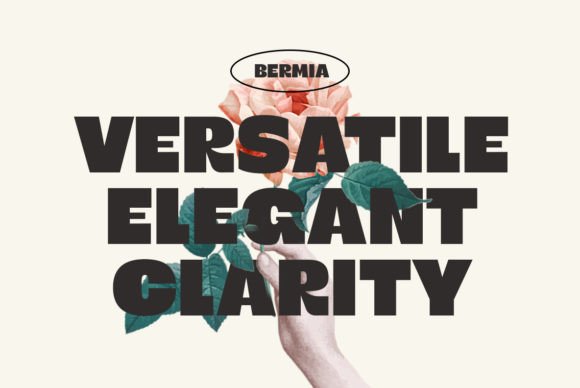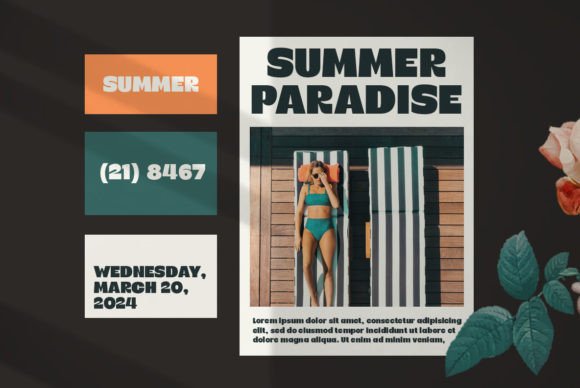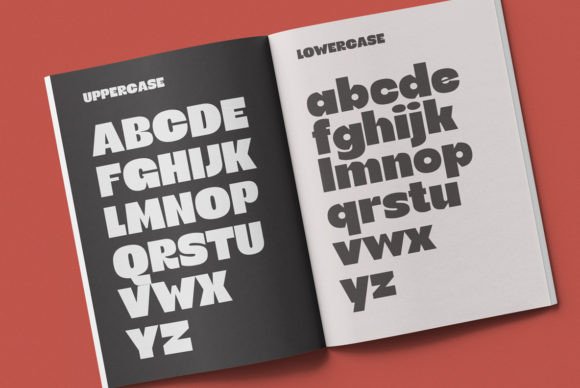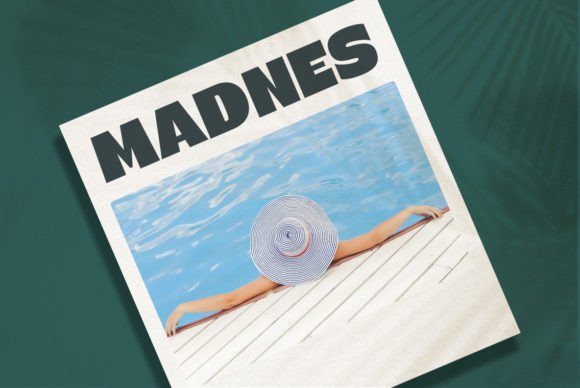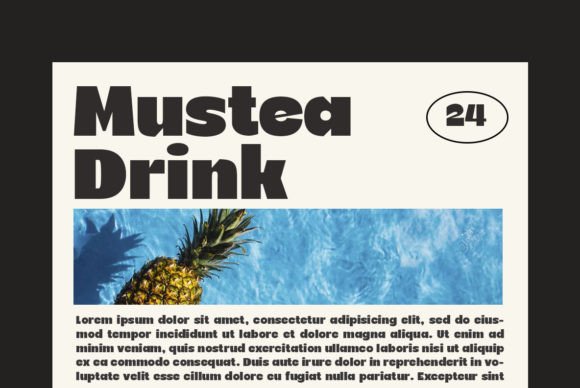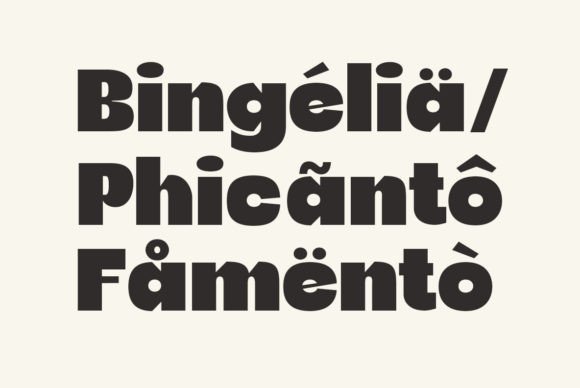
The Perfect Blend of Bold and Elegant: Bermia Font
Have you ever been stuck on a design project, staring at a blank page, searching for the perfect font to bring your vision to life? You know, that moment when everything clicks, and the words start flowing, and you know exactly what you want to create? That’s exactly what happened when the designers behind Bermia Font set out to craft a display font that would capture the essence of elegance and boldness.
Bermia Font is more than just a font – it’s a tool designed to elevate your branding, posters, logos, and advertisements to the next level. Its unique blend of style and readability makes it the perfect companion for designers looking to create impactful and engaging visual content.
With Bermia Font, designers can breathe new life into their projects, conveying messages that are not only visually stunning but also easy to read and understand. Its versatility and sophistication make it a valuable addition to any designer’s toolkit.
Bermia Font Key Features
- Font Family: Bermia Font is a sans-serif font family.
- Unique Characteristics: Bermia Font features a clean and modern design with a unique blend of geometric and rounded shapes, making it ideal for use in digital and print media.
- Language Support: Bermia Font supports a wide range of languages, including Latin, Cyrillic, Greek, and many others.
Bermia Font Review
I recently had the chance to work with the Bermia font, and I must say it’s an interesting addition to any design project. ✨ The font’s unique blend of modern and vintage elements makes it a great choice for those looking to add some visual interest to their text.
The Bermia font is highly legible, making it suitable for a wide range of applications, from body text to headings. ✨ The font’s open and airy feel also makes it a great choice for creating a sense of lightness and elegance in your designs.
While the Bermia font has many great qualities, there are some limitations to consider. ⚠️ For one, the font’s unique design can be a bit overwhelming for some users. Additionally, the font may not be suitable for applications where a more traditional or formal tone is required.
Here are some specific limitations to keep in mind:
- May not be suitable for formal or traditional designs
- Can be overwhelming for some users
- May require additional styling to achieve desired look
Overall, I think the Bermia font is a great choice for designers looking to add some visual interest to their projects. While it may not be suitable for every application, it’s a great option for those looking to create a unique and eye-catching design.
For the best results, use Bermia Font for headings and titles to add a touch of elegance to your design.
Use Bermia Font to create beautiful typography for your graphics, logos, or branding materials.
Use Bermia Font to add a touch of sophistication to your presentations, reports, or documents.
Bermia Font is perfect for:
Remember to use Bermia Font consistently throughout your design to create a cohesive and professional
Playfair Display is a luxurious, high-end serif font suitable for formal and elegant designs. It features intricate details and connections between letters, making it perfect for wedding invitations, luxury branding, and high-end publications.
Compared to Bermia Font, Playfair Display has a more classical and sophisticated look, while Bermia Font has a more modern and minimalist feel. Playfair Display is ideal for projects where you want to convey luxury and elegance, whereas Bermia Font is better suited for modern and contemporary designs.